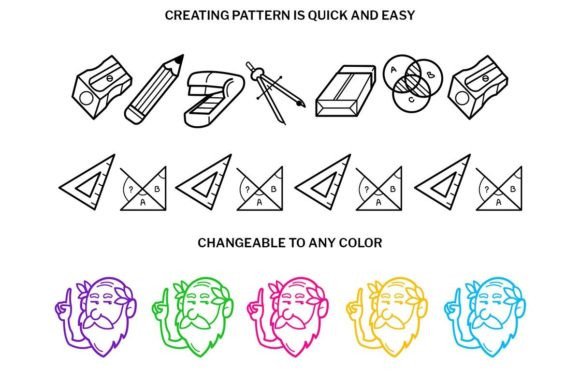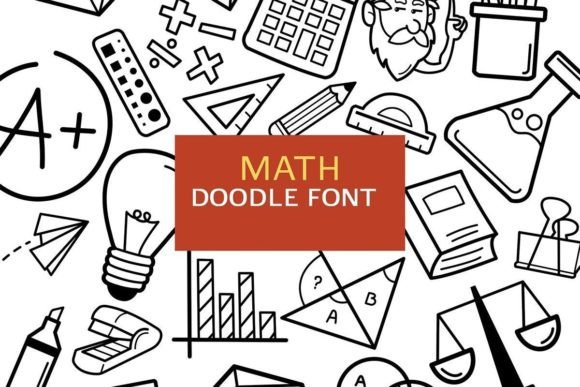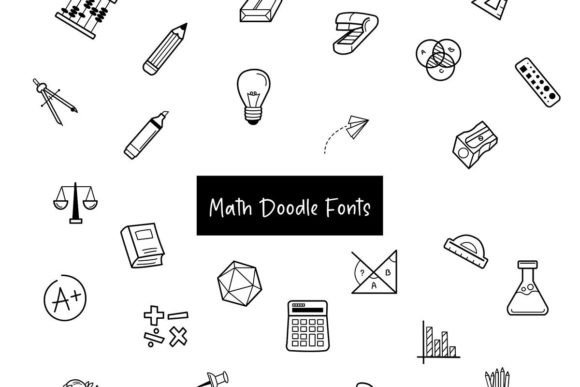
Math Doodle Font
About Math Doodle Font
The Math Doodle dingbats font is a playful and practical typeface that combines mathematical symbols with doodle-style illustrations. With its unique collection of glyphs, this font adds a touch of creativity and functionality to your design projects.
If you’re working on educational materials, textbooks, or any project that involves mathematics, the Math Doodle font is a great choice. Each glyph within the font represents a different mathematical symbol or concept, such as numbers, geometric shapes, equations, and more. These symbols can be used to enhance your designs and visually communicate mathematical concepts in a fun and engaging way.
In addition to its mathematical symbols, the font also includes doodle-style illustrations that bring a sense of playfulness to your projects. These illustrations can be used to add decorative elements, create visual interest, or simply add a touch of whimsy to your designs. Whether you’re designing worksheets, presentations, or digital learning materials, the Math Doodle font offers a creative way to incorporate mathematical elements into your work.
Furthermore, the versatility of the Math Doodle font allows it to be used beyond educational materials. You can add a unique and playful touch to various projects such as posters, banners, social media graphics, and more. The combination of mathematical symbols and doodle-style illustrations creates a visually appealing and eye-catching design that captures attention and makes your projects stand out.
The Math Doodle font is easy to use and can be applied to both print and digital projects. Its clear and legible symbols ensure that mathematical concepts are effectively communicated to your audience. The font is designed with usability in mind, making it accessible and user-friendly for both designers and viewers.
In conclusion, the Math Doodle dingbats font is a fun and useful typeface that brings together mathematical symbols and doodle-style illustrations. Its unique collection of glyphs allows you to add creativity and functionality to your design projects, particularly in the realm of mathematics and education. By confidently incorporating the Math Doodle font into your work, you’ll love the results and create visually engaging designs that captivate and inspire your audience.